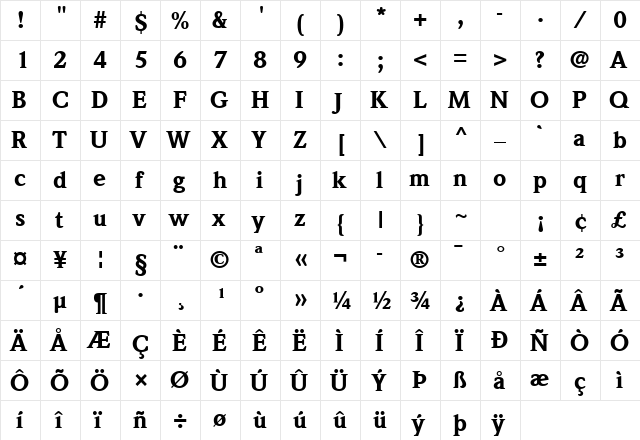
ITC Weidemann Com Black
| Foundry | Linotype GmbH |
| Designer | Kurt Weidemann |
Design Context for ITC Weidemann Com Typeface
ITC Weidemann Com takes a measured approach to typography — its balanced proportions and neutral character make it a reliable workhorse for both digital and print work.